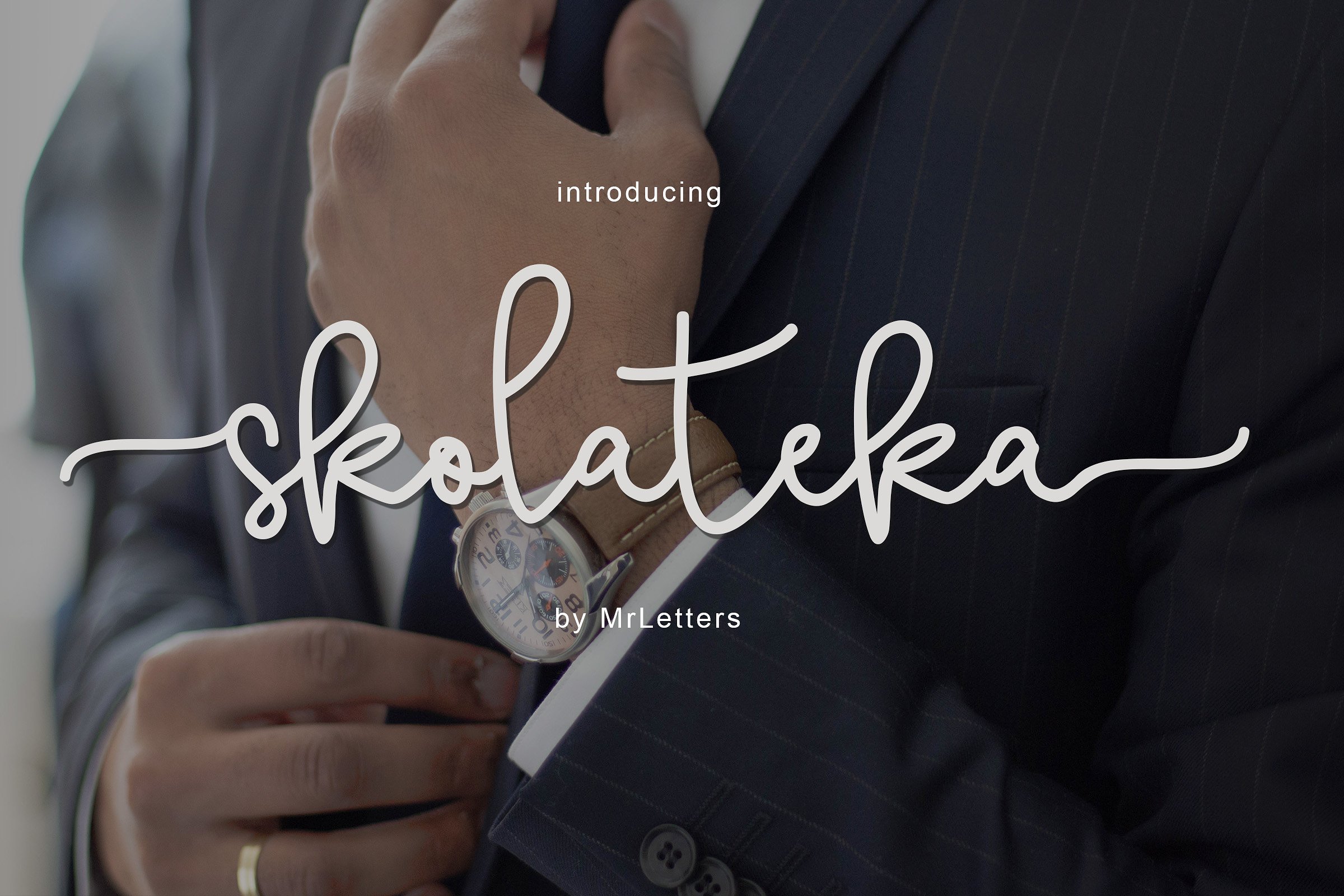
Skolateka Script Font
Skolateka Script a new fresh & modern script with a handmade style, decorative characters and a dancing baseline! So beautiful on invitation like greeting cards, branding materials, business cards, quotes, posters, and more!!